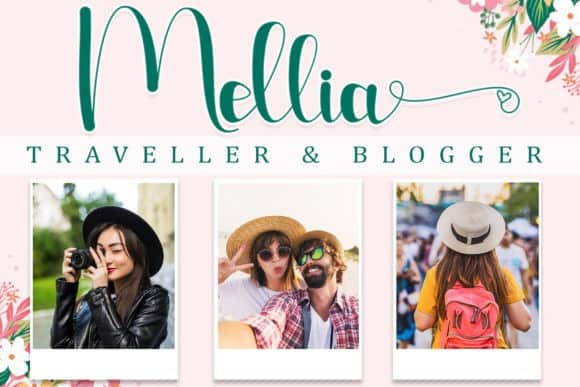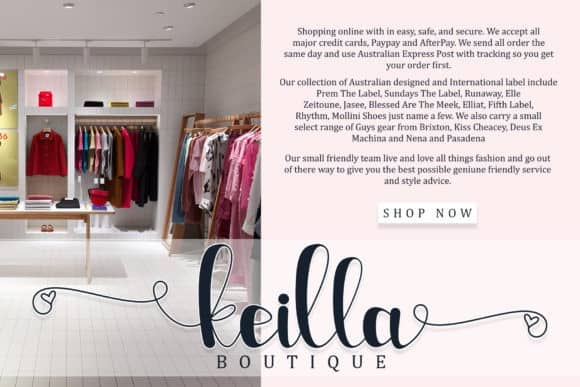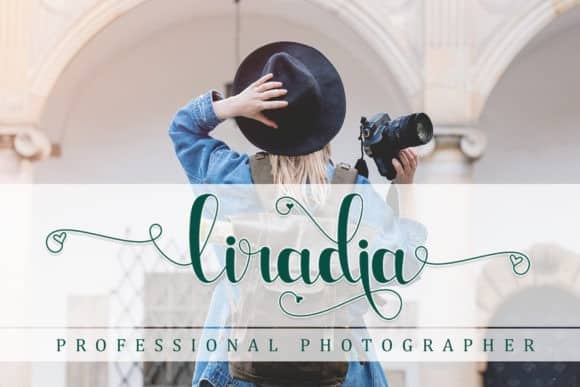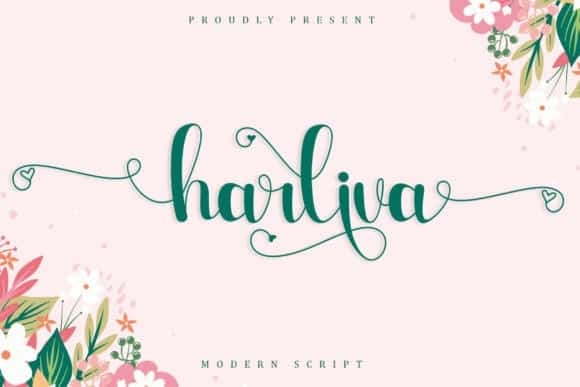
Harliva Calligraphy Font
Harliva Calligraphy Font is a chic and modern, natural, organic, handwritten typeface. Harliva also includes full set of uppercase and lowercase letters, multilingual symbols, numerals, punctuation and ligatures. This font can make your writing and brand elegant or beautiful. Harliva is great for unique branding, photo overlays, watermark, greeting cards, posters, business card, invitations, wedding, photography, fashion, apparel, letter, stationery, etc.